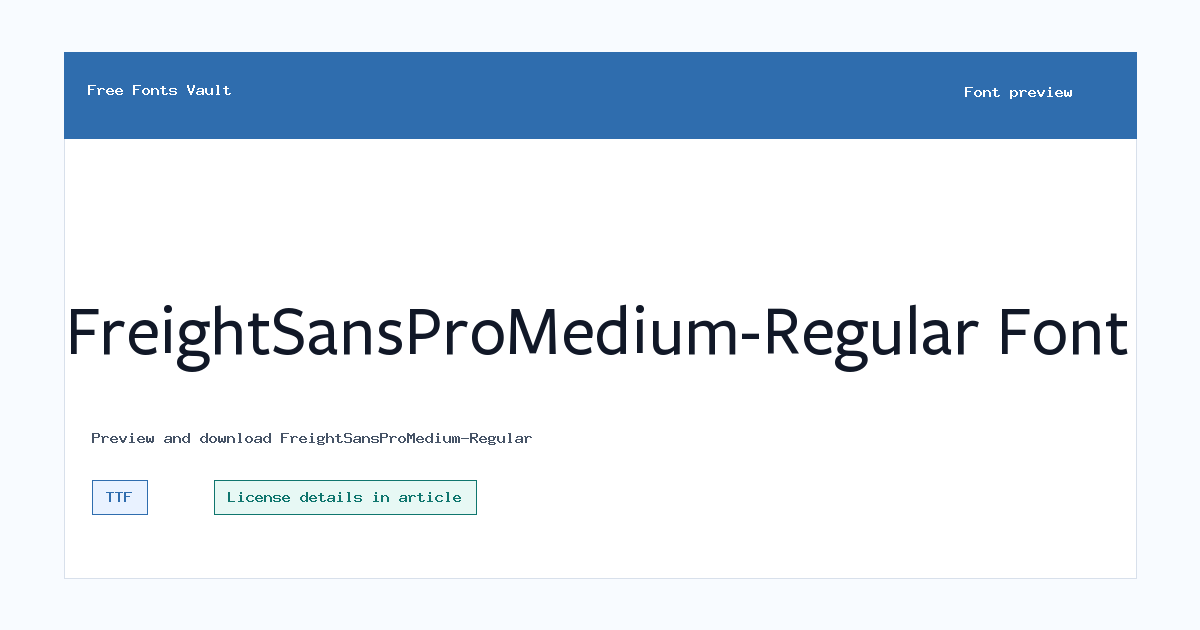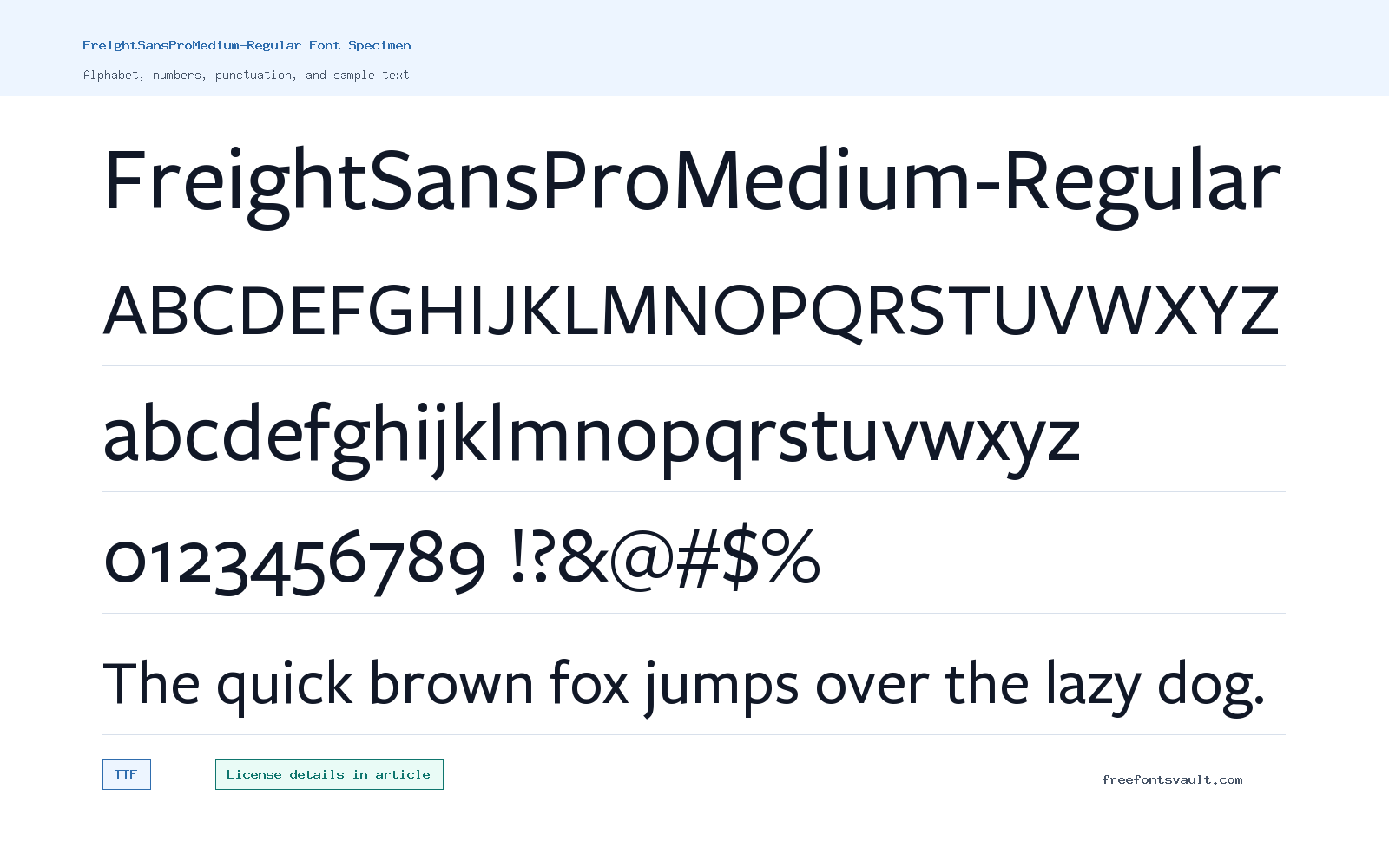
FreightSansProMedium-Regular
- Designer Joshua Darden
- Foundry Joshua Darden & Phil's Fonts, Inc
Freight Sans Pro Medium Regular is a clean, steady sans serif with enough weight for confident headings and enough restraint for short blocks of text. It is a practical choice when you want a modern-looking font that does not feel decorative or loud.
About Freight Sans Pro Medium Regular
Freight Sans Pro Medium Regular belongs to the Freight Sans Pro family associated with Joshua Darden. The style name points to a medium-weight upright cut, and the file on this page is a TrueType font with a listed weight of 500. In use, that means it should sit between a regular text weight and a bold display weight: strong enough for labels, navigation, cards, pull quotes, and section titles, but not as heavy as a full bold face. Its sans serif structure makes it easy to test across common design settings where clarity matters more than ornament.
- Medium-weight upright sans serif style, listed as weight 500
- Part of the broader Freight Sans Pro family, which is documented as a multi-style sans serif family
- Useful for clean headings, labels, interface mockups, editorial layouts, and short text settings
- Website headings, menus, cards, and interface labels that need clear sans serif text
- Editorial decks, magazine-style layouts, posters, and simple promotional graphics
- Brand concept drafts where a neutral but polished medium weight is useful
- Short paragraphs, captions, and pull quotes after checking spacing and readability in the preview
The designer is listed as Joshua Darden. The foundry information for this entry names Joshua Darden & Phil's Fonts, Inc., and external references also connect Freight Sans and Freight Sans Pro with Joshua Darden.
What weight is this font?
This entry lists the font weight as 500, commonly treated as a medium weight.
Who designed Freight Sans Pro Medium Regular?
The designer is listed as Joshua Darden.
What is this font good for?
It is best tested for headings, navigation, labels, short editorial text, posters, and clean layout work where a medium-weight sans serif is needed.